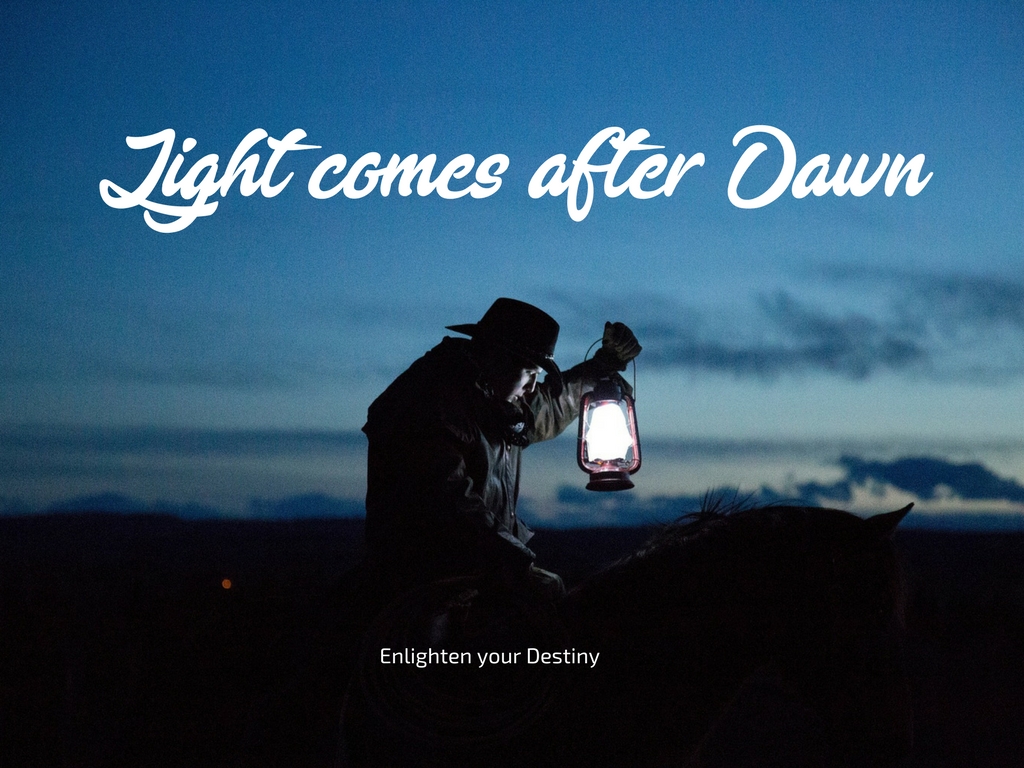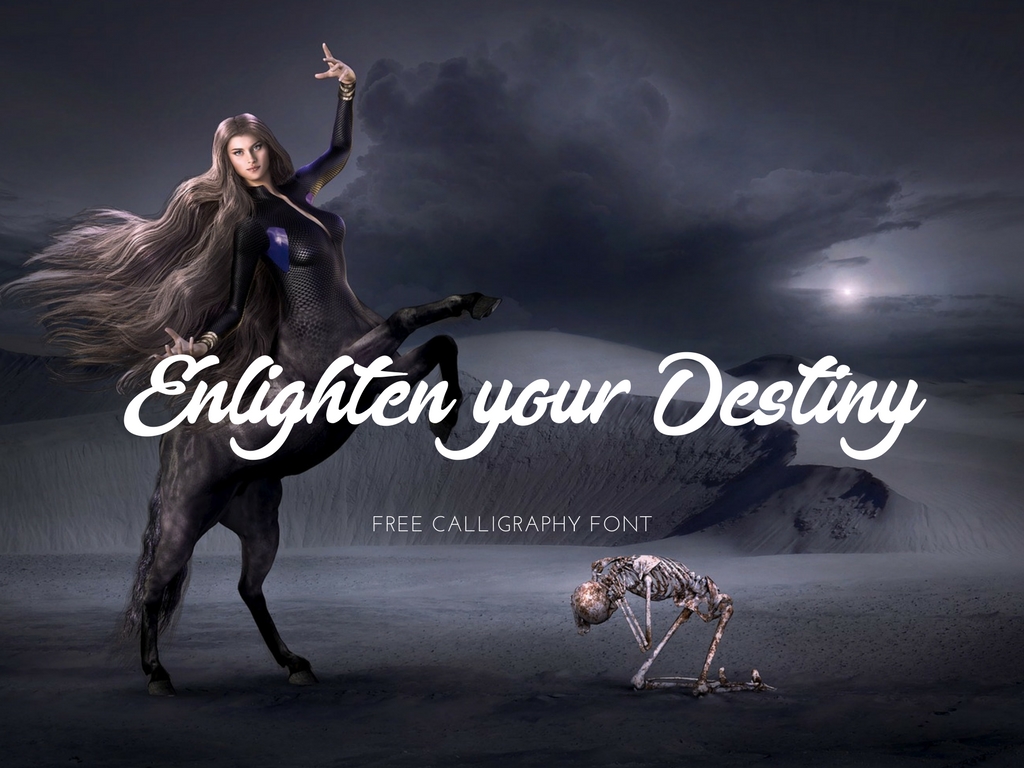
Enlighten your Destiny Font
Enlighten your Destiny Font is in most cases utilized for its pairing function. This typeface is likewise used internal adobe and also for commercial use. And it’s far available freed from rate. The ones are hand-drawn fonts that in reality deliver off an actual private contact for your duties.